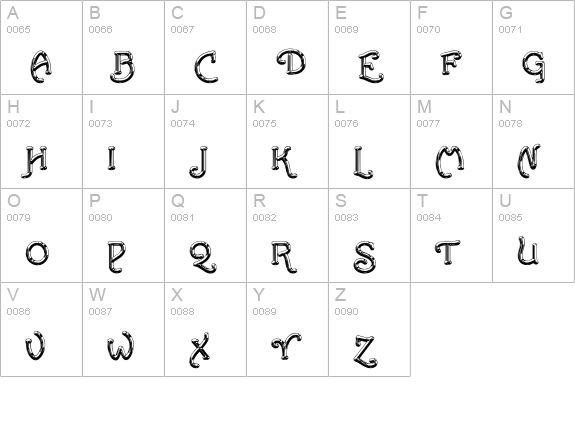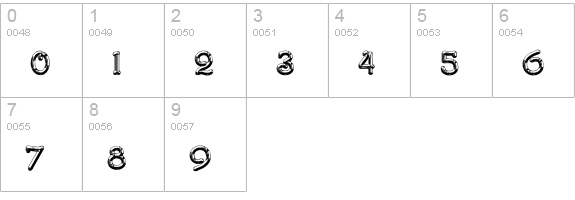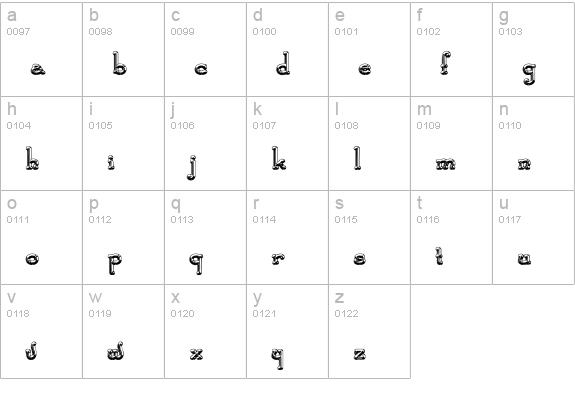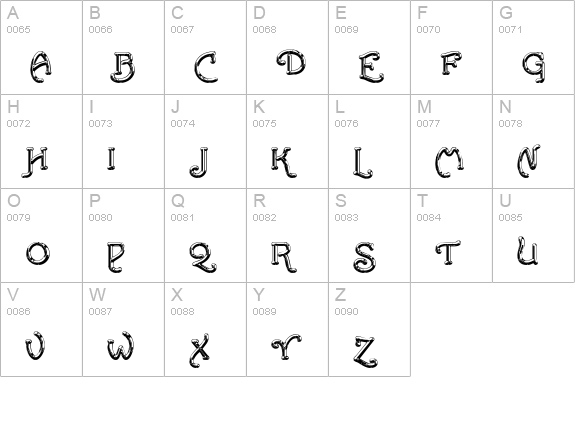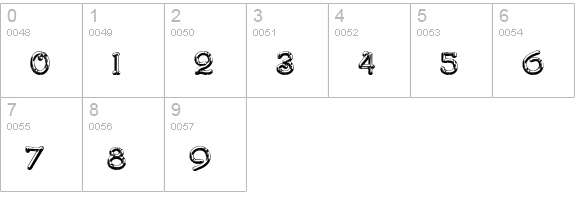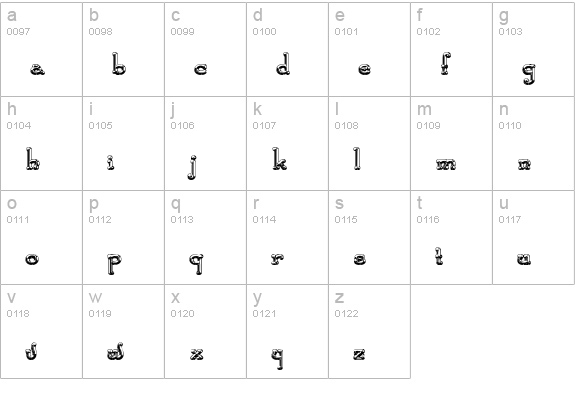
Introducing Santa'sSleighFull 'Deluxe' font, a whimsical and enchanting typeface that captures the spirit of the holiday season. This font is the perfect companion for all your festive projects, bringing a touch of magic to your designs. With its elegant curves and playful details, Santa'sSleighFull 'Deluxe' font will transport you to a winter wonderland, evoking images of Santa Claus and his trusty reindeer dashing across the night sky. Its unique and eye-catching design will instantly captivate your audience, making it ideal for greeting cards, invitations, posters, and more. But what makes Santa'sSleighFull 'Deluxe' font truly special is that it is available for free. Yes, you read that right - this incredible font can be yours without spending a single penny! Simply head over to FontsMarket.com and download it instantly. It's our gift to you, ensuring that everyone can add a touch of holiday cheer to their creations. Whether you're a professional designer or a DIY enthusiast, Santa'sSleighFull 'Deluxe' font is a must-have in your font library. Its versatility and festive charm make it suitable for a wide range of projects, allowing you to create stunning and memorable designs that will leave a lasting impression. So don't wait any longer - embrace the holiday spirit with Santa'sSleighFull 'Deluxe' font. Download it for free at FontsMarket.com and let your creativity soar this holiday season. Spread joy and warmth with every letter, and make your designs shine brighter than Rudolph's red nose.